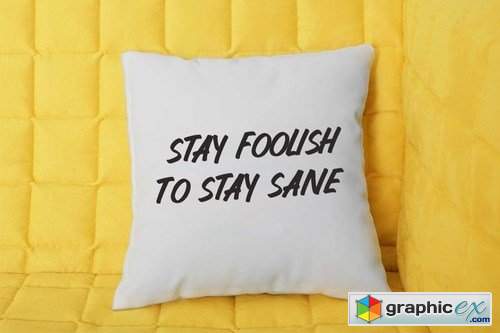
Lemonpie
Lemonpie Font is a brushed and handwritten font. Fall in love with its incredibly distinct and timeless style and use it to create spectacular designs!